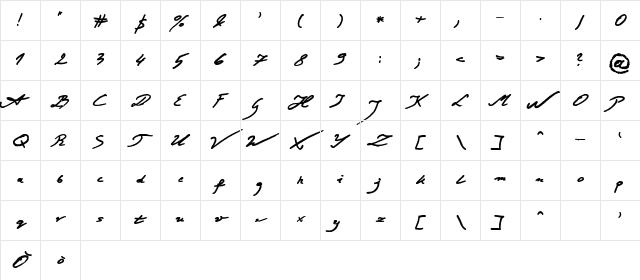
Complete Jacek Zi-Jasi Bold glyph index. Displaying only characters natively supported by Jacek Zi-Jasi Bold font.
Jacek Zi-Jasi is a composed and adaptable typeface that performs quietly and consistently across a wide range of design contexts. Its bold stroke weight gives it real presence on the page.